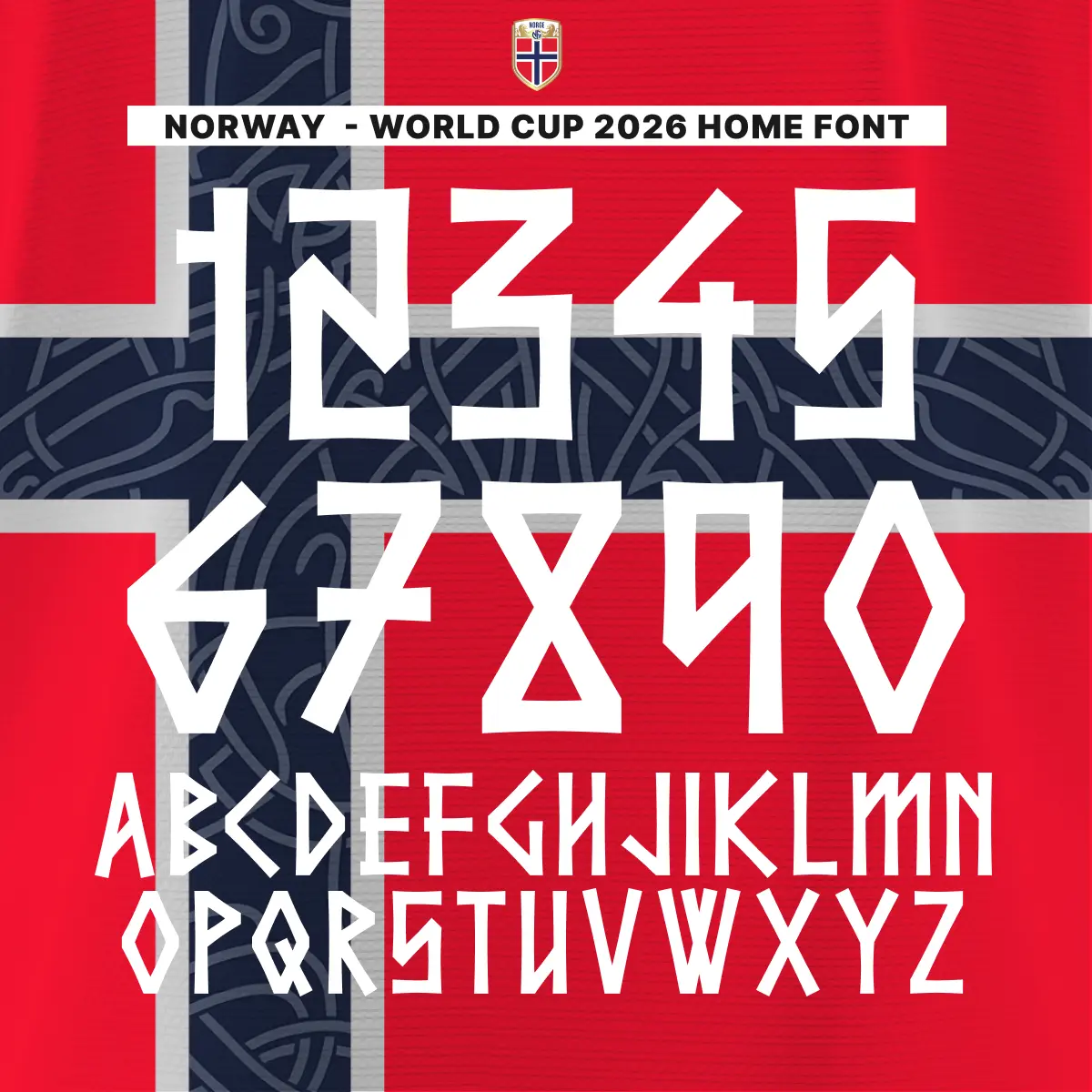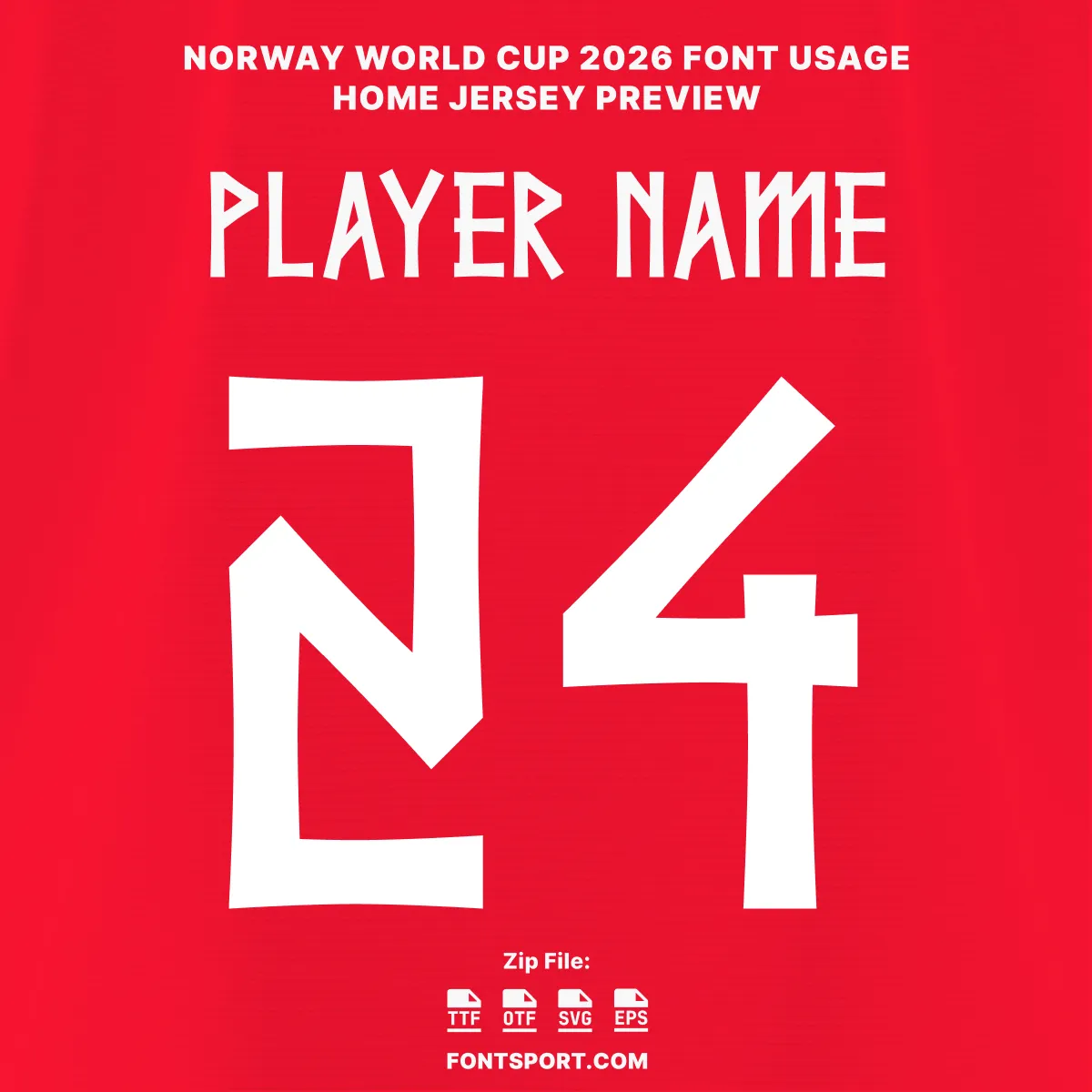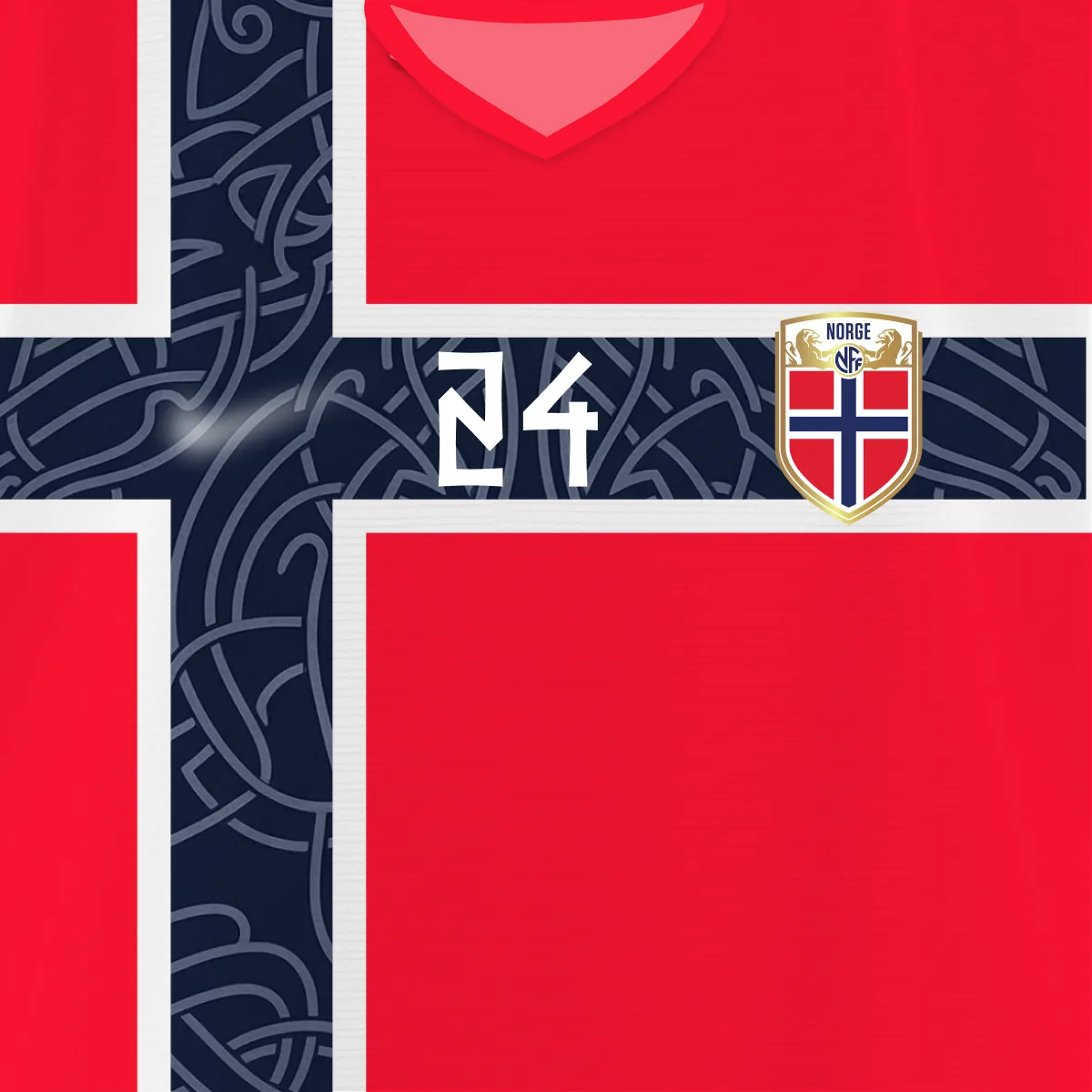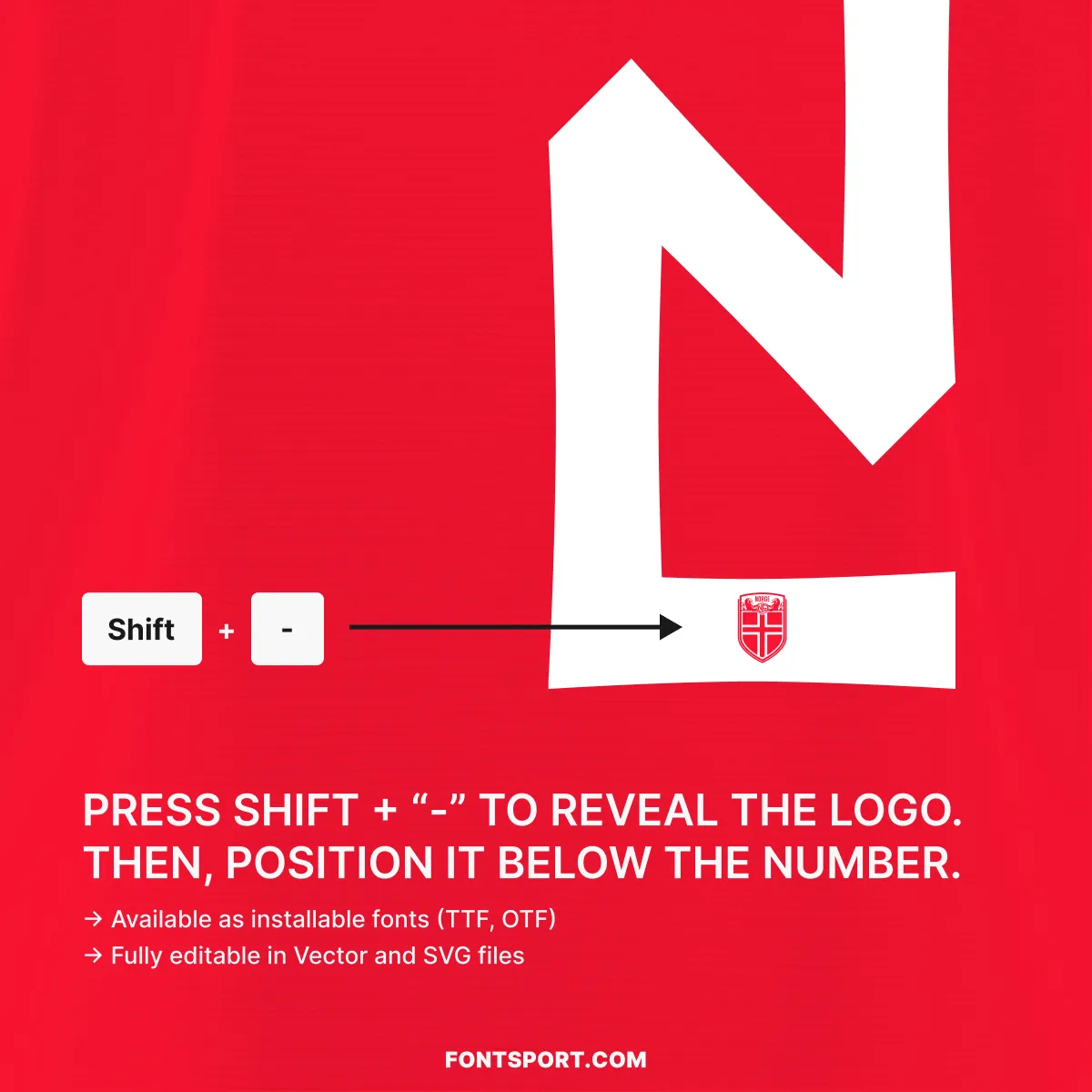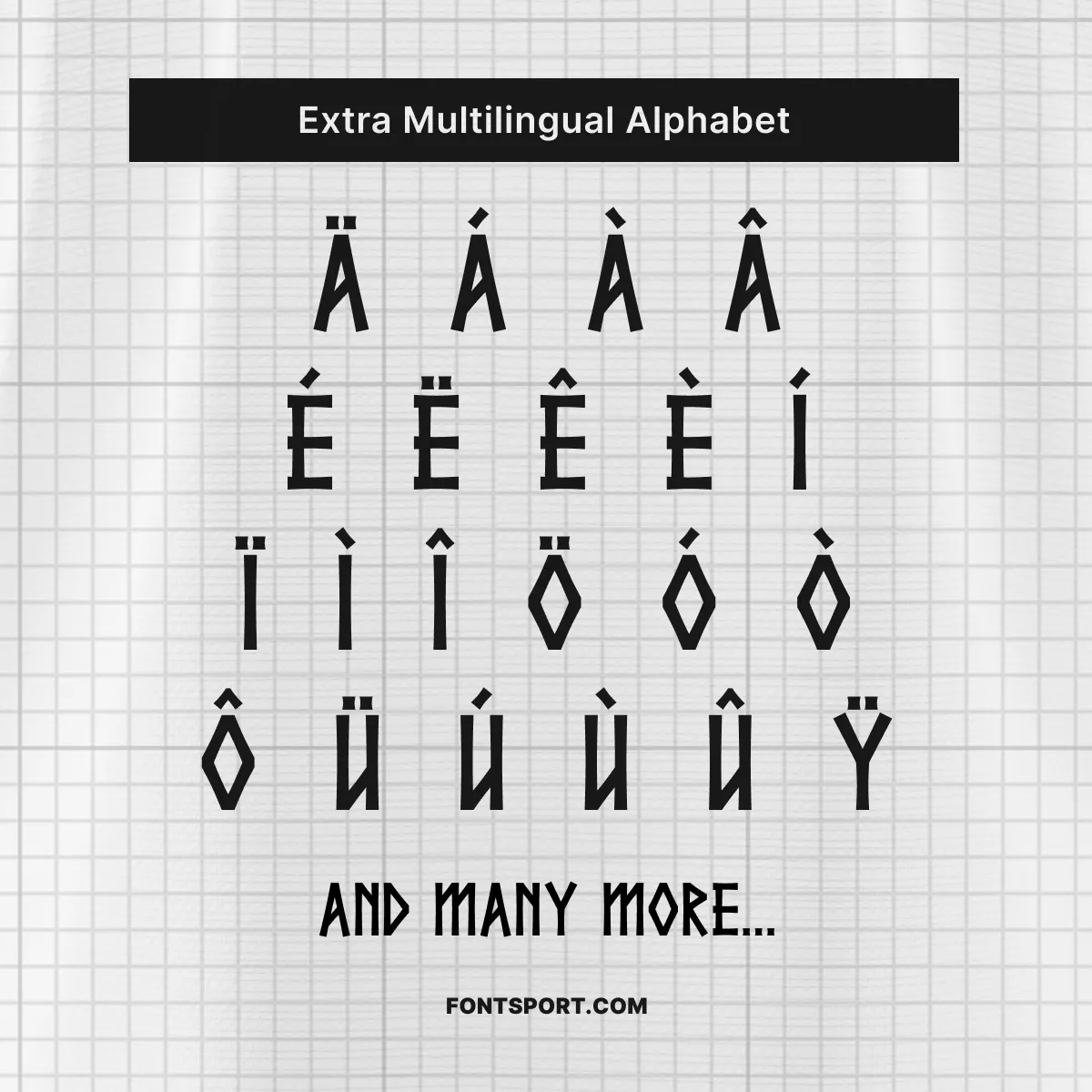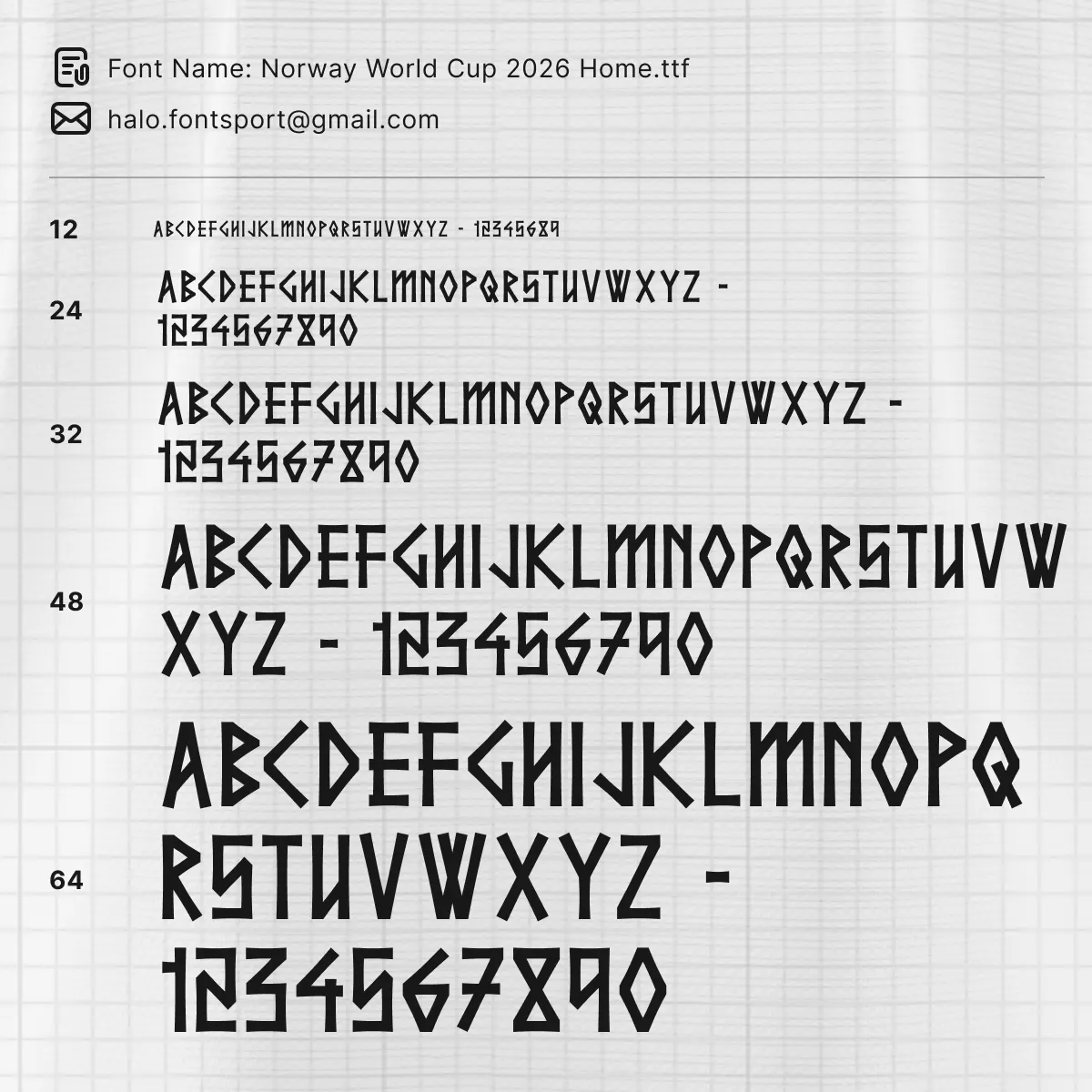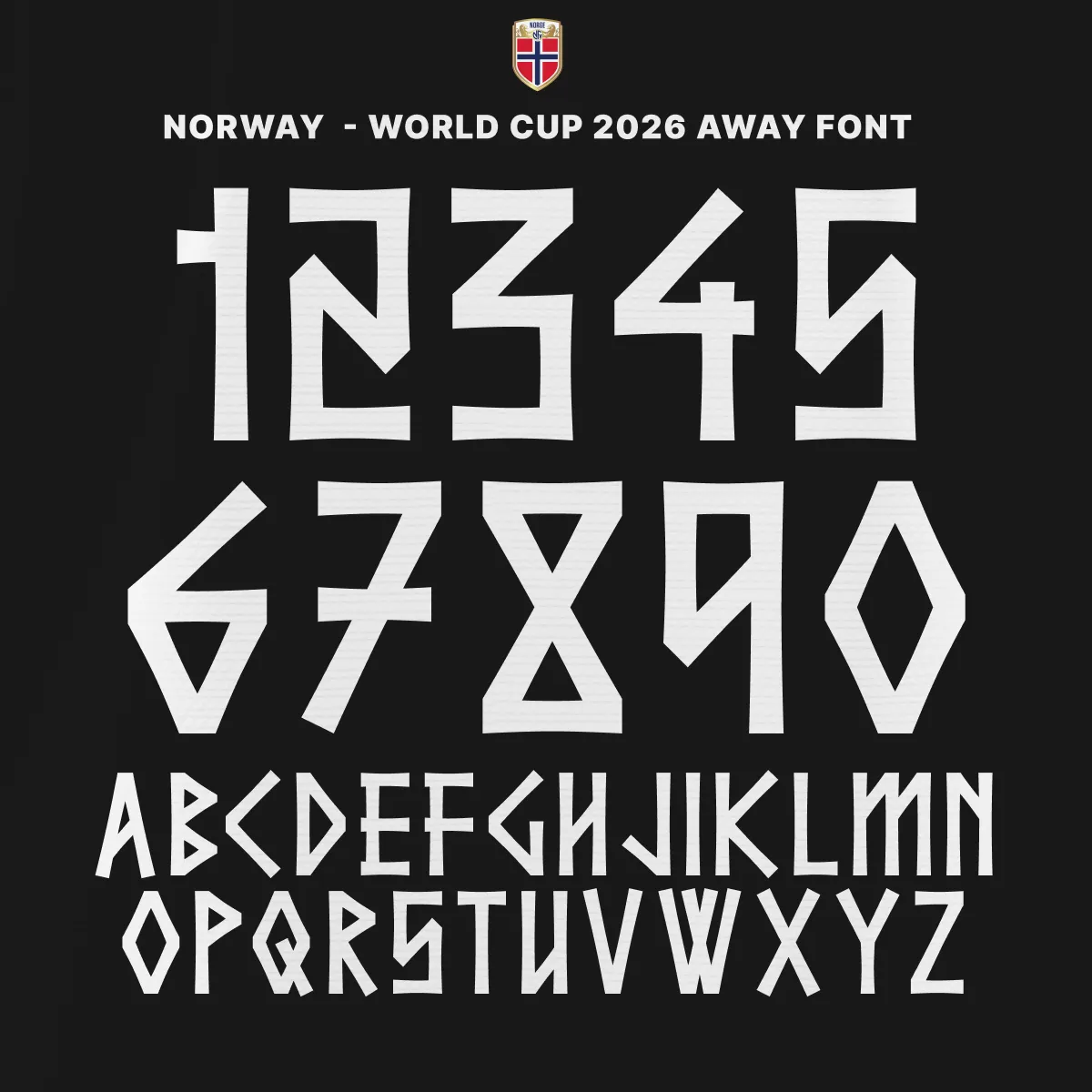
Norway World Cup 2026 Font Kit Home – Authentic FIFA World Cup Typeface
Norway’s return to the FIFA World Cup after a 28-year absence is one of football’s most anticipated comebacks — and the jersey typeface that carries Haaland’s name on that iconic red shirt is every bit as powerful as the moment deserves. The Norway World Cup 2026 Font Kit Home is a match-accurate recreation of the lettering worn across Norway’s home kit, crafted character by character to replicate the angular weight, geometric cuts, and runic spirit of the typography seen on the pitch. Furthermore, this is a font that feels as if it was pulled directly from Norse mythology — bold, uncompromising, and impossible to ignore.
Key Visual Identity of the Font
Typography Style
The Norway 2026 Home font is unlike any other national team typeface in the current World Cup cycle. Its letterforms are rooted in Viking runic heritage — angular strokes, sharp diagonal cuts, and geometric construction give every character an ancient yet fiercely modern quality. The weight is substantial, ensuring maximum legibility across the back of a replica shirt or a matchday poster.
Number Design
The numerals are particularly striking. Each digit is built with the same runic geometry as the alphabet, featuring bold upstrokes and deliberate angular breaks that set this kit apart from conventional football typefaces. In addition, the figures hold their presence at any scale — from full-back-print jersey numbers to thumbnail-sized social media graphics.
- ✅ Full uppercase A–Z & numbers 0–9 in Norway’s authentic 2026 Home style
- ✅ NFF crest/logo glyph — activated via Shift + “–” for complete shirt presentation
- ✅ Extended multilingual Latin alphabet with full diacritic support (Ä, Å, Ö, É, Û, and many more)
- 🏆 Includes the NFF crest glyph — place it below the number for a complete shirt-accurate look
- 🌍 Extended diacritic support covers Norwegian, Scandinavian, and European player names with ease